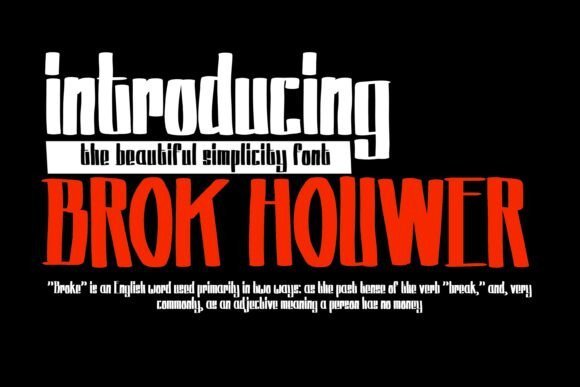
Introduction to Brok Houwer Font
Broke Houwer is a bold and distinctive typeface that combines modern style with a strong artistic character.
Its unique letterforms create a striking visual impact, making it perfect for logos, posters, branding, headlines, and creative design projects With its stylish and expressive appearance.
Why Choose Brok Houwer Font?
Brok Houwer Font offers exceptional quality and versatility, making it a valuable addition to your design toolkit. Whether you’re creating for personal projects or commercial use, Brok Houwer Font delivers professional results.